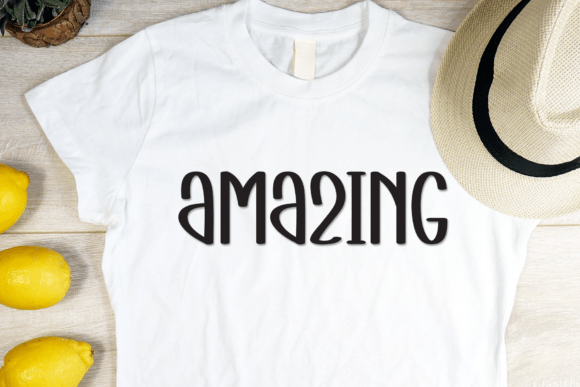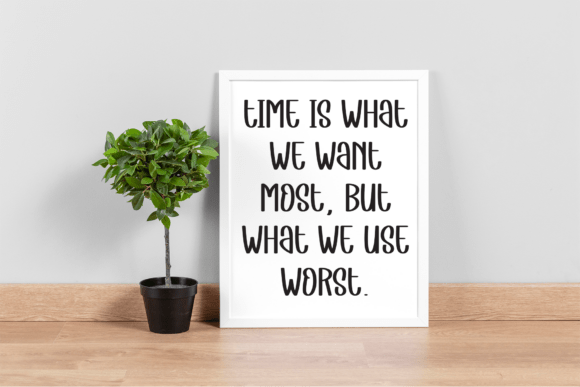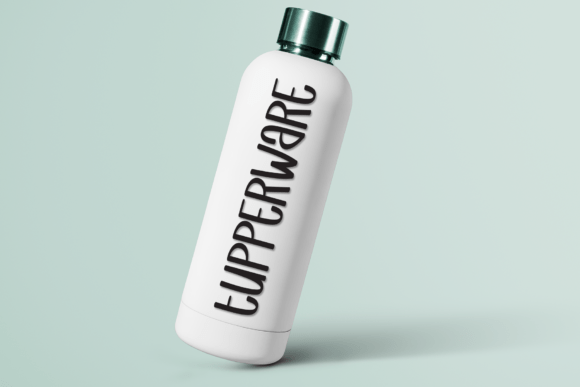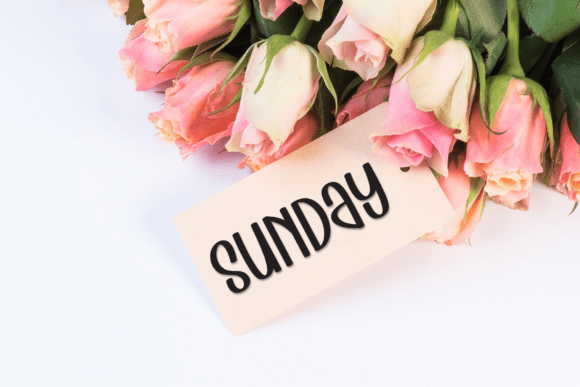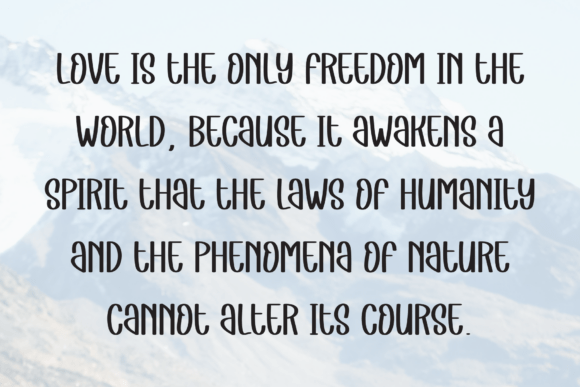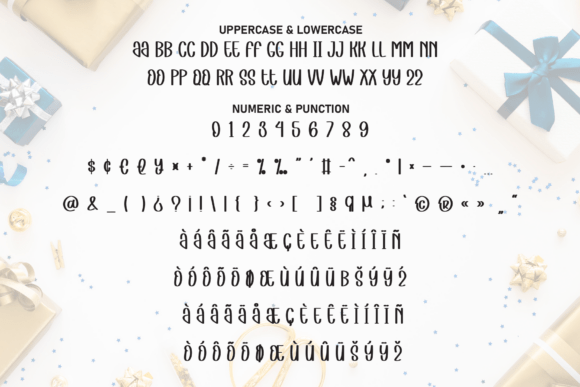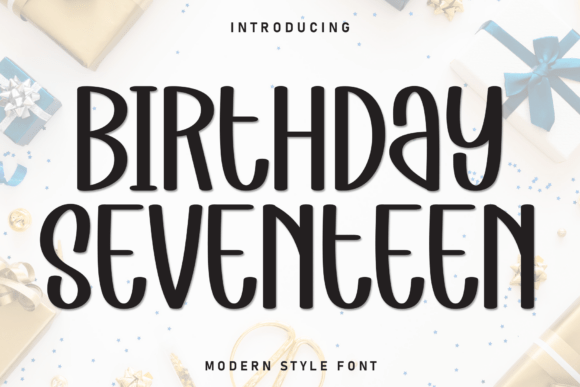
Introducing Birthday Seventeen Font: Add a Touch of Whimsy to Your Designs
Are you looking for a font that can add a playful and charming touch to your creative projects? Look no further than Birthday Seventeen Font, a beautiful handwritten display font that is sure to capture the essence of a heartfelt handwritten note. In this article, we’ll take a closer look at the features and benefits of Birthday Seventeen Font, and explore how you can use it to elevate your designs.
The Charm of Birthday Seventeen Font
Birthday Seventeen Font is a handwritten display font that exudes adorability and a playful flair. Its unique and whimsical design makes it the perfect choice for designers and crafters who want to add a personal touch to their work. Whether you’re creating wedding invitations, greeting cards, or any other design project, Birthday Seventeen Font is sure to bring a smile to your audience’s faces.
Key Features of Birthday Seventeen Font
• Handwritten Display Font: Birthday Seventeen Font is a handwritten display font that mimics the look and feel of a handwritten note.
• Whimsical Design: The font features a unique and playful design that is sure to add a touch of whimsy to your designs.
• Adorable and Playful: Birthday Seventeen Font is brimming with adorability and a playful flair, making it perfect for designs that require a personal touch.
• Perfect for Creative Projects: The font is ideal for a wide range of creative projects, including wedding invitations, greeting cards, and any design endeavor that could benefit from a sprinkle of fun.
Benefits of Using Birthday Seventeen Font
So why choose Birthday Seventeen Font for your designs? Here are just a few benefits of using this beautiful font:
• Elevate Your Designs: Birthday Seventeen Font can help you elevate your designs with a distinct and memorable aesthetic that’s personable, approachable, and irresistibly delightful.
• Add a Personal Touch: The font’s handwritten design allows you to add a personal touch to your work, making it perfect for designs that require a human touch.
• Stand Out from the Crowd: Birthday Seventeen Font is a unique and eye-catching font that is sure to help your designs stand out from the crowd.
Using Birthday Seventeen Font in Your Designs
So how can you use Birthday Seventeen Font in your designs? Here are a few ideas to get you started:
• Wedding Invitations: Use Birthday Seventeen Font to create beautiful and whimsical wedding invitations that will set the tone for the big day.
• Greeting Cards: Add a personal touch to your greeting cards with Birthday Seventeen Font, perfect for birthdays, holidays, and special occasions.
• Social Media Graphics: Use Birthday Seventeen Font to create eye-catching social media graphics that will help you stand out from the crowd.
• Branding and Packaging: Add a touch of whimsy to your branding and packaging with Birthday Seventeen Font, perfect for businesses that want to stand out.
In conclusion, Birthday Seventeen Font is a beautiful and whimsical handwritten display font that is perfect for designers and crafters who want to add a personal touch to their work. With its unique and playful design, Birthday Seventeen Font is sure to elevate your designs and help you stand out from the crowd. So why wait? Download Birthday Seventeen Font today and start adding a touch of whimsy to your creative projects!